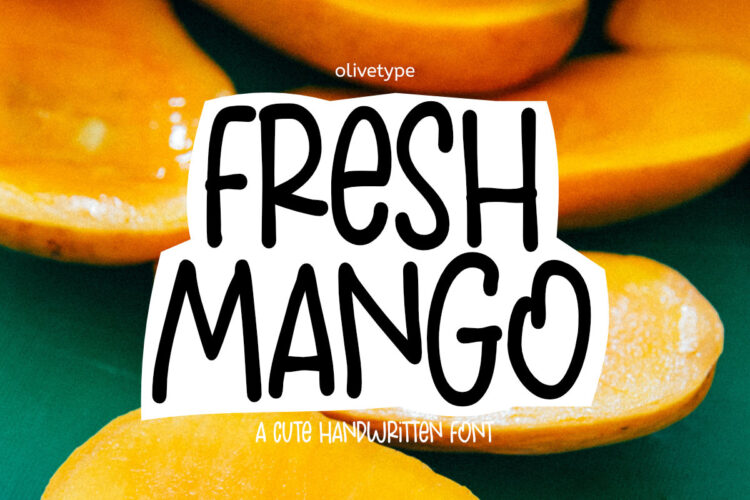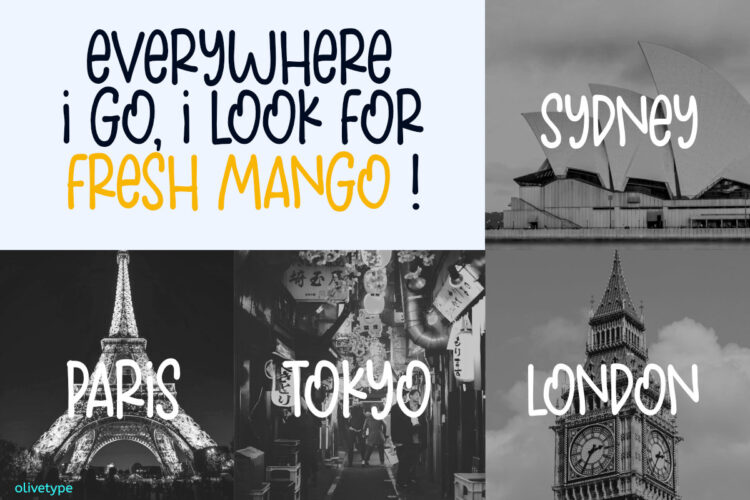
Fresh Mango is a cute and quirky handwritten font. It’s simple and friendly style makes this design incredibly versatile, fitting a wide variety of creative ideas.